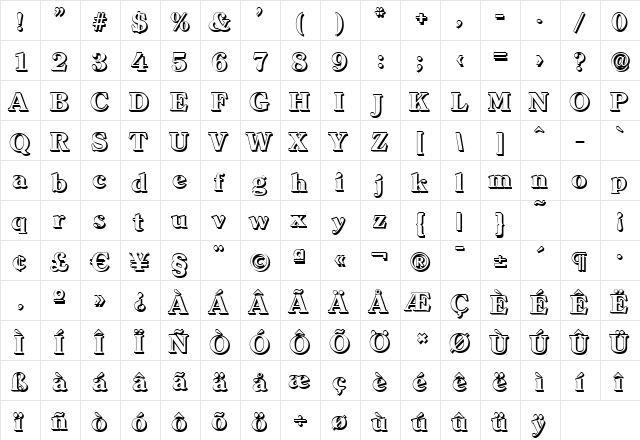
ChristianBeckerShadow-ExtraBol d-Regular Font Preview
ChristianBeckerShadow-ExtraBol d-Regular
ChristianBeckerShadow-ExtraBol d-Regular Font Details
Design Context for ChristianBeckerShadow-ExtraBol Typeface
ChristianBeckerShadow-ExtraBol brings ornamental detail and strong personality to headlines and identities, where visual impact matters more than quiet functionality.
Font Pairing: Pair with a clean neutral sans-serif for body copy to let ChristianBeckerShadow-ExtraBol's character lead without overwhelming the composition.
Pro Tip: Use ChristianBeckerShadow-ExtraBol exclusively at display sizes — it was designed to be seen, not read at length. Let a neutral companion handle body copy.